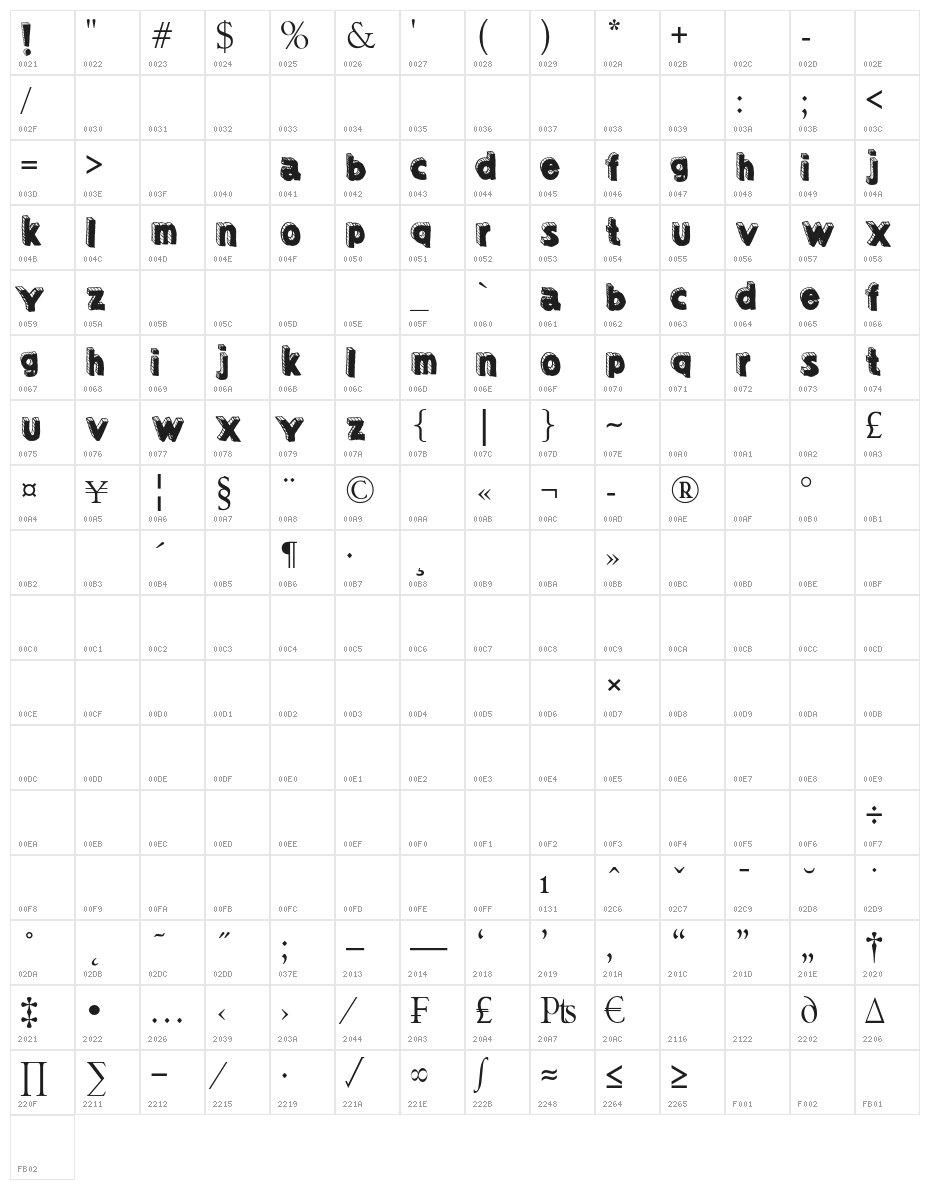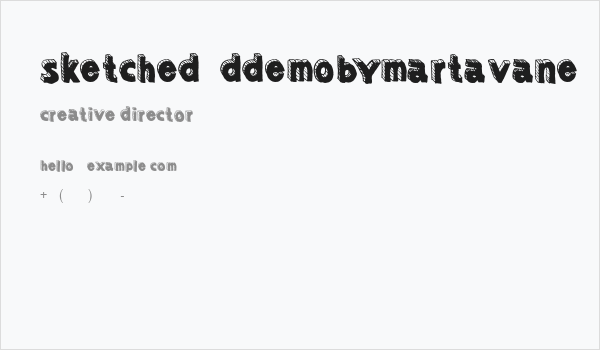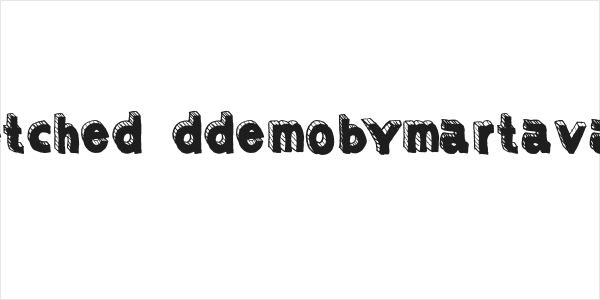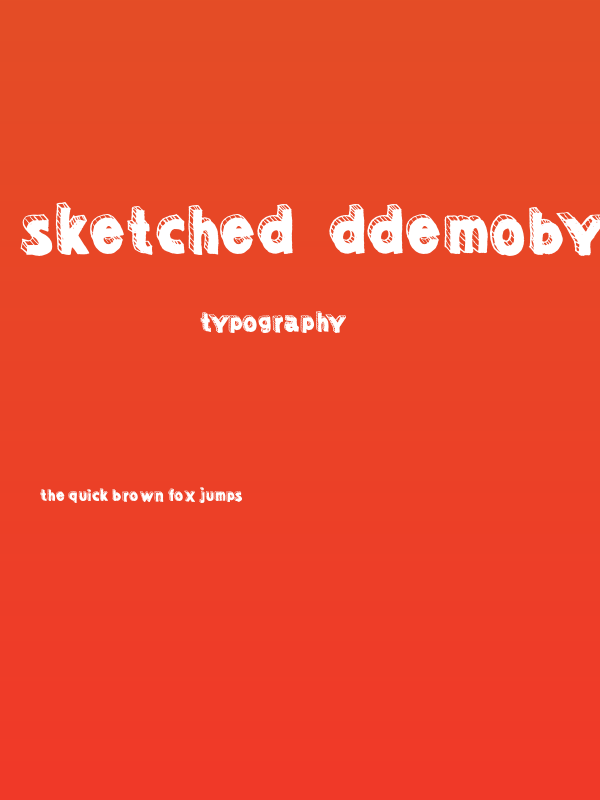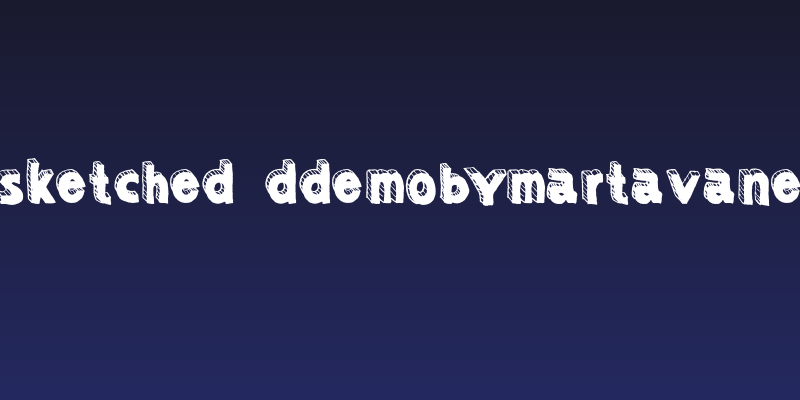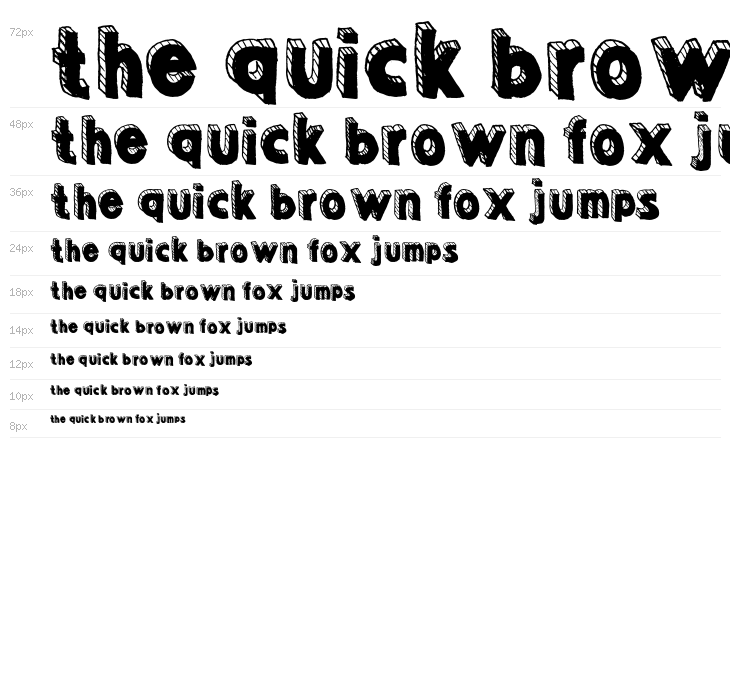
Sketched3dDEMObyMartavanE Font
Sketched3dDEMObyMartavanE Description
This font features a playful, three-dimensional sketch style that gives each character a hand-drawn, artistic appearance. The letters are bold and have a shadow effect that creates a sense of depth, making them stand out on the page. The strokes are uneven, adding to the casual and informal vibe of the font. It is perfect for projects that require a fun and creative touch, such as children's books, comic strips, or playful branding. The font includes both uppercase and lowercase letters, as well as a variety of special characters, ensuring versatility in its application.
| Proposed Projects | Ideal for children's books, comic strips, playful branding, and creative designs. |